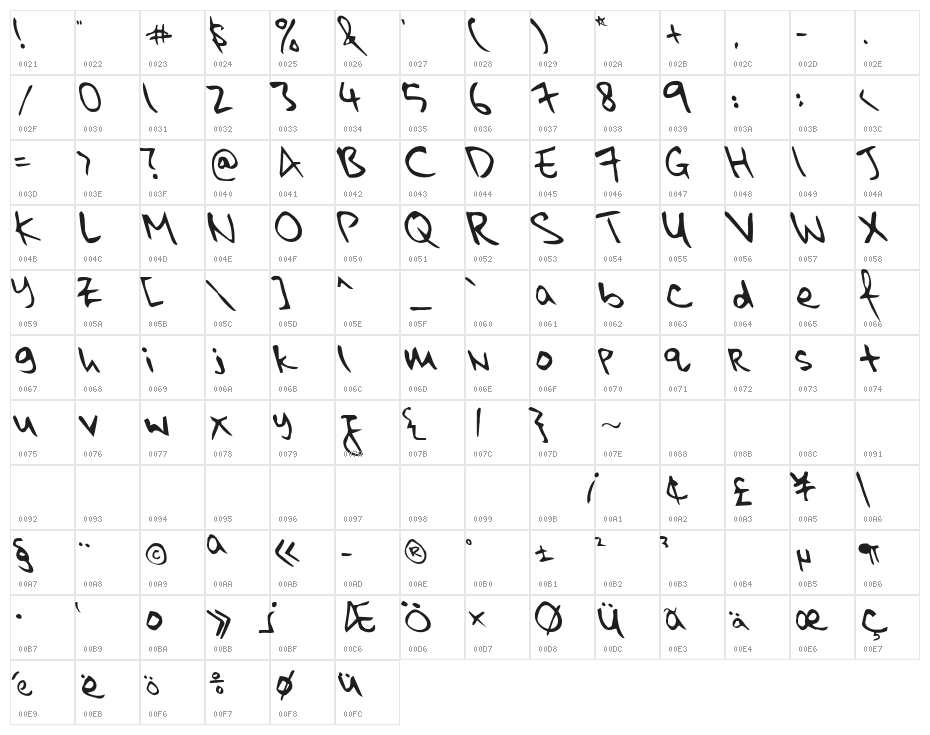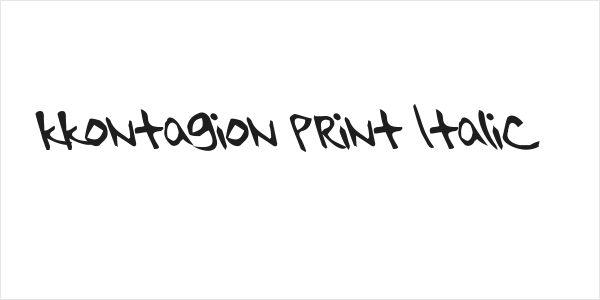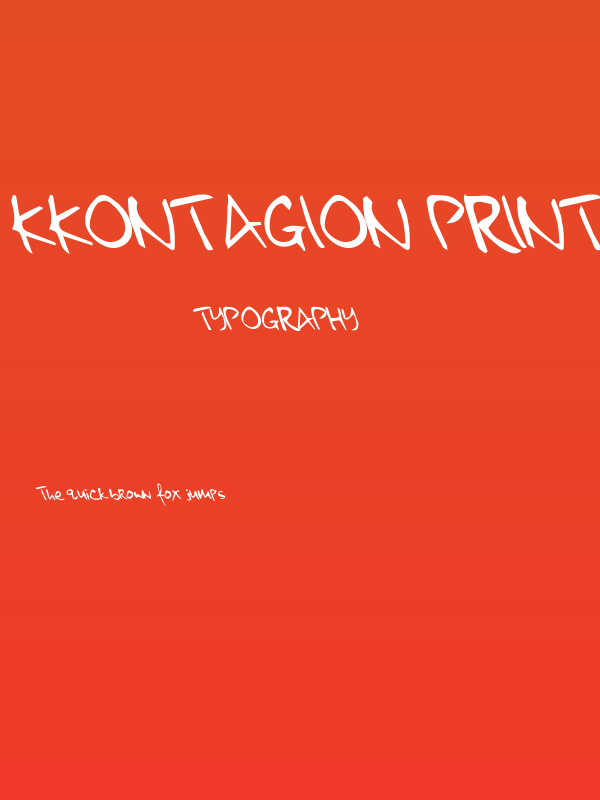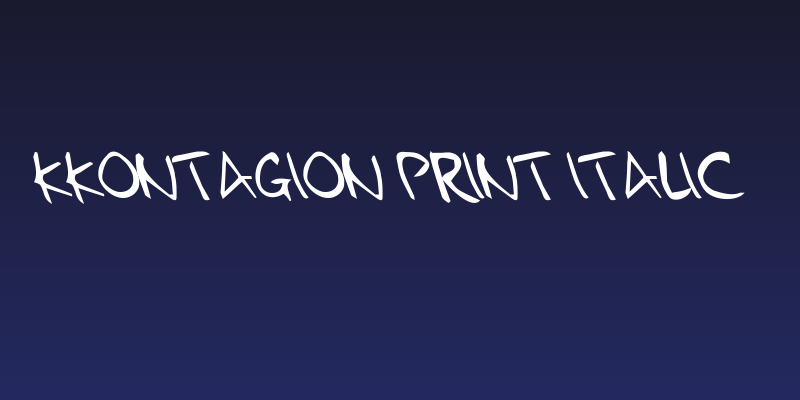
kkontagion print Italic Font
kkontagion print Italic Description
This font exhibits a dynamic and energetic style, characterized by its bold and expressive strokes. The letters are slanted, giving it an italicized appearance, which adds to its sense of motion and fluidity. The uppercase and lowercase letters maintain a consistent style, with exaggerated curves and angles that create a sense of urgency and excitement. The numbers and special characters follow the same design principles, ensuring a cohesive look across all glyphs. This font's handwritten quality makes it stand out, offering a unique and personal touch to any design. Its boldness ensures readability while maintaining an artistic flair.
| Use Case | Logos, Posters, Creative Branding |
| Proposed Projects | Ideal for projects that require a personal touch, such as greeting cards, posters, and branding for creative industries. |